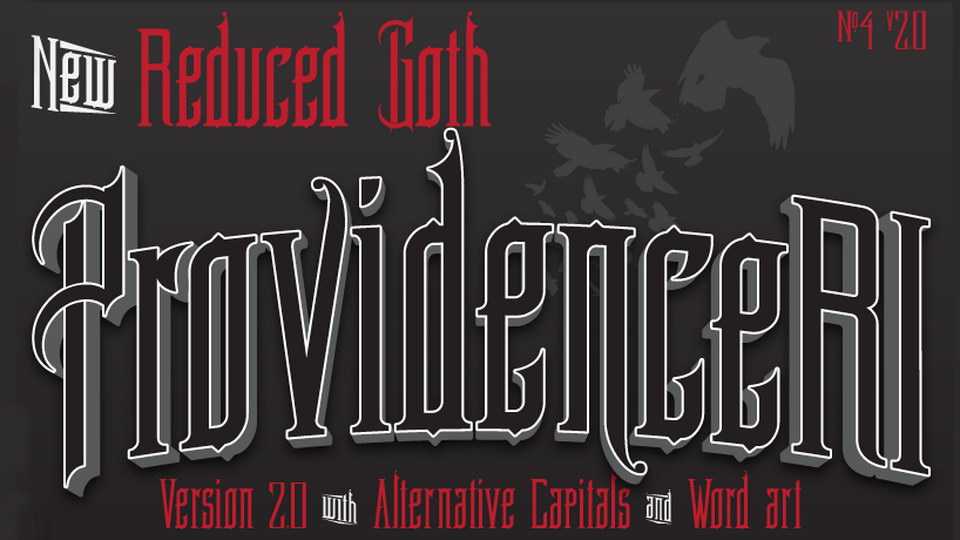
Providence Font › Fontesk – Download Grátis
Download Providence font, a vintage goth font spawned from the typography of a 1900 Sanborn Perris Map Co. Ltd. Providence font featuring alternative serif capitals, word art and tweaked metrics.
Designer: Pilaster Davy